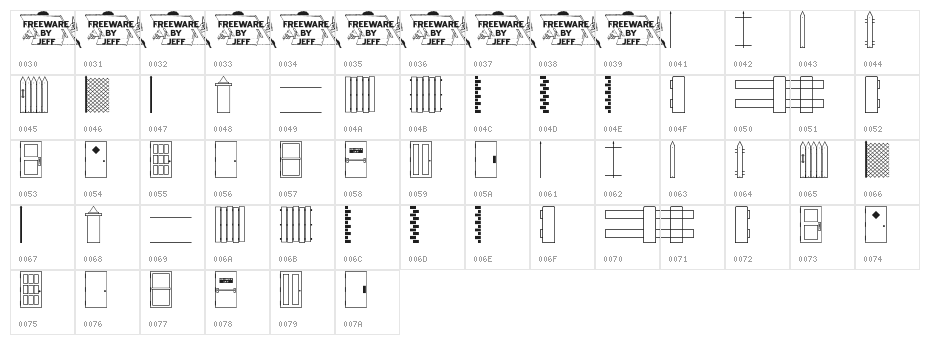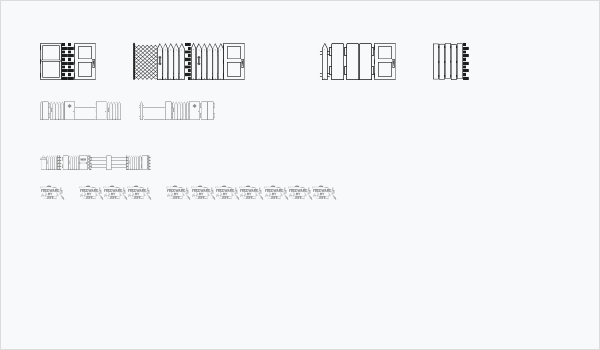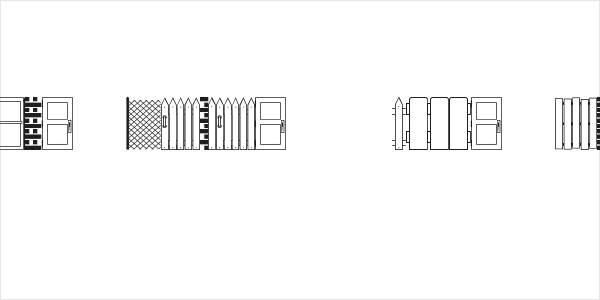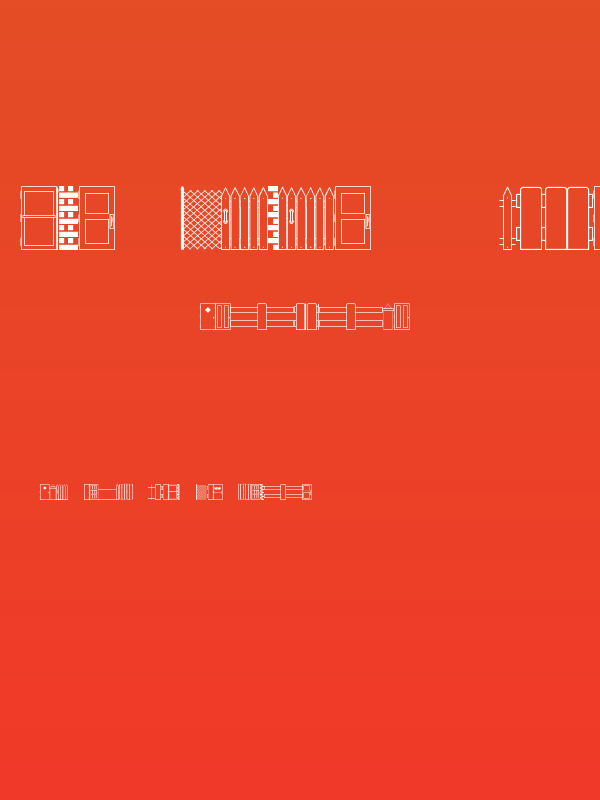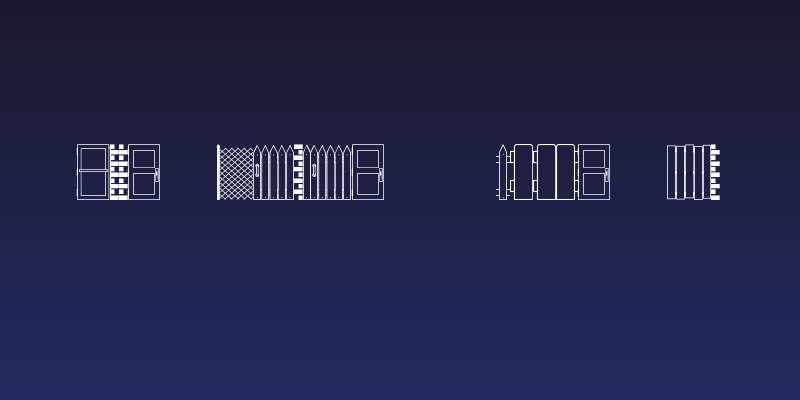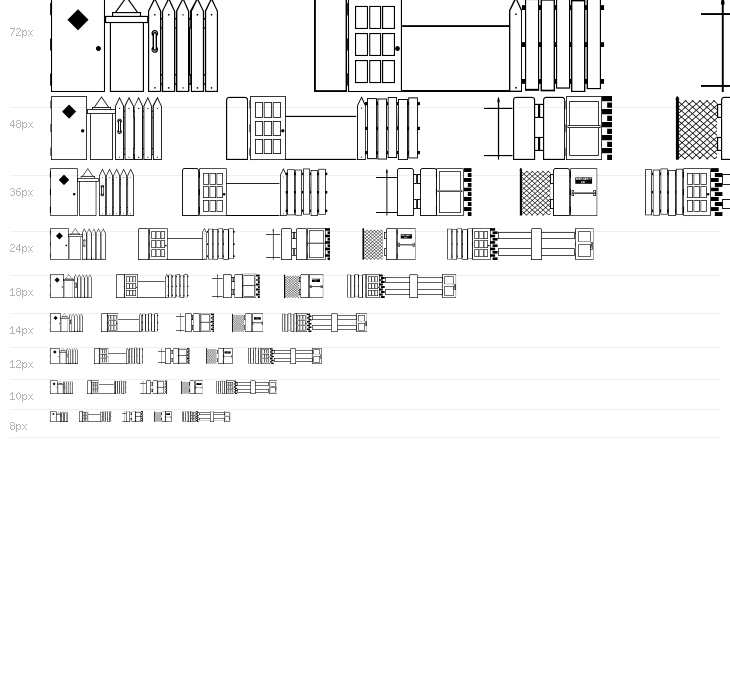
Walls, Fences & Doors JL Font
Walls, Fences & Doors JL Description
This image contains architectural illustrations of various walls, fences, and doors, along with a repeated 'FREEWARE BY JEFF' label at the bottom. There is no complete alphabet, numeral set, or punctuation presented in a consistent typographic style suitable for font analysis.